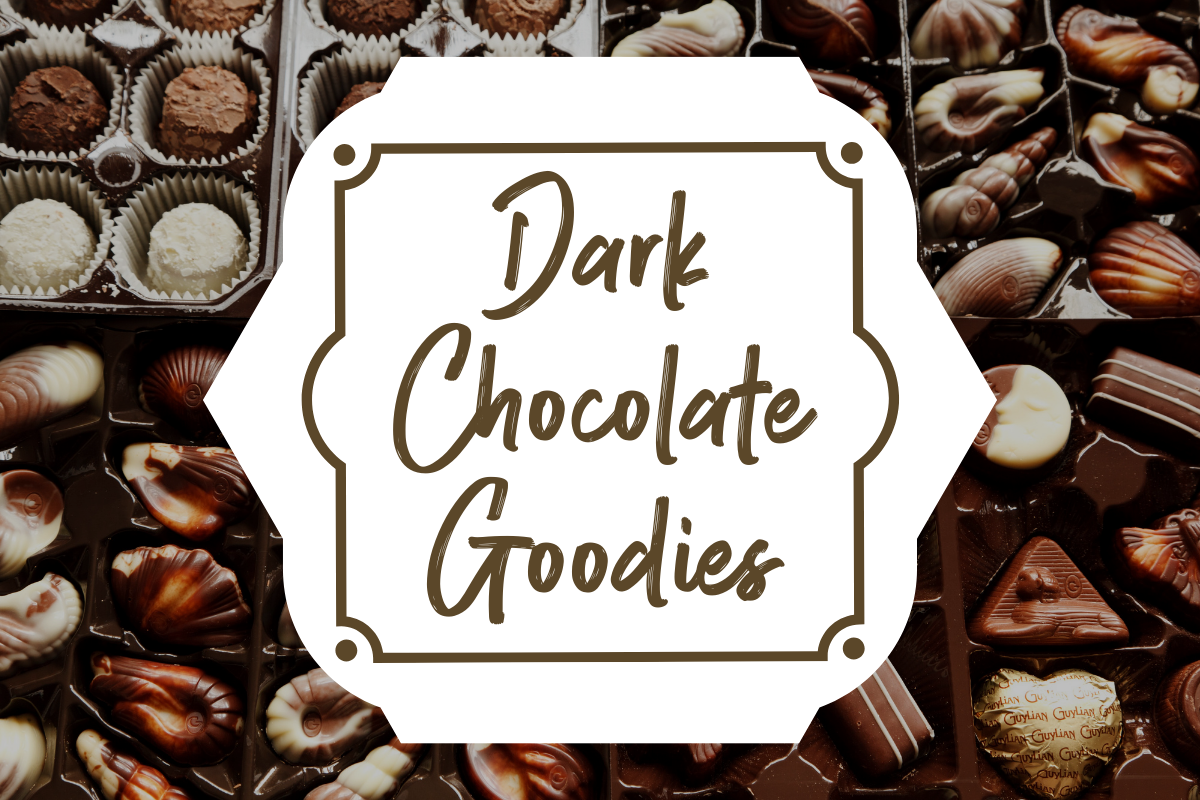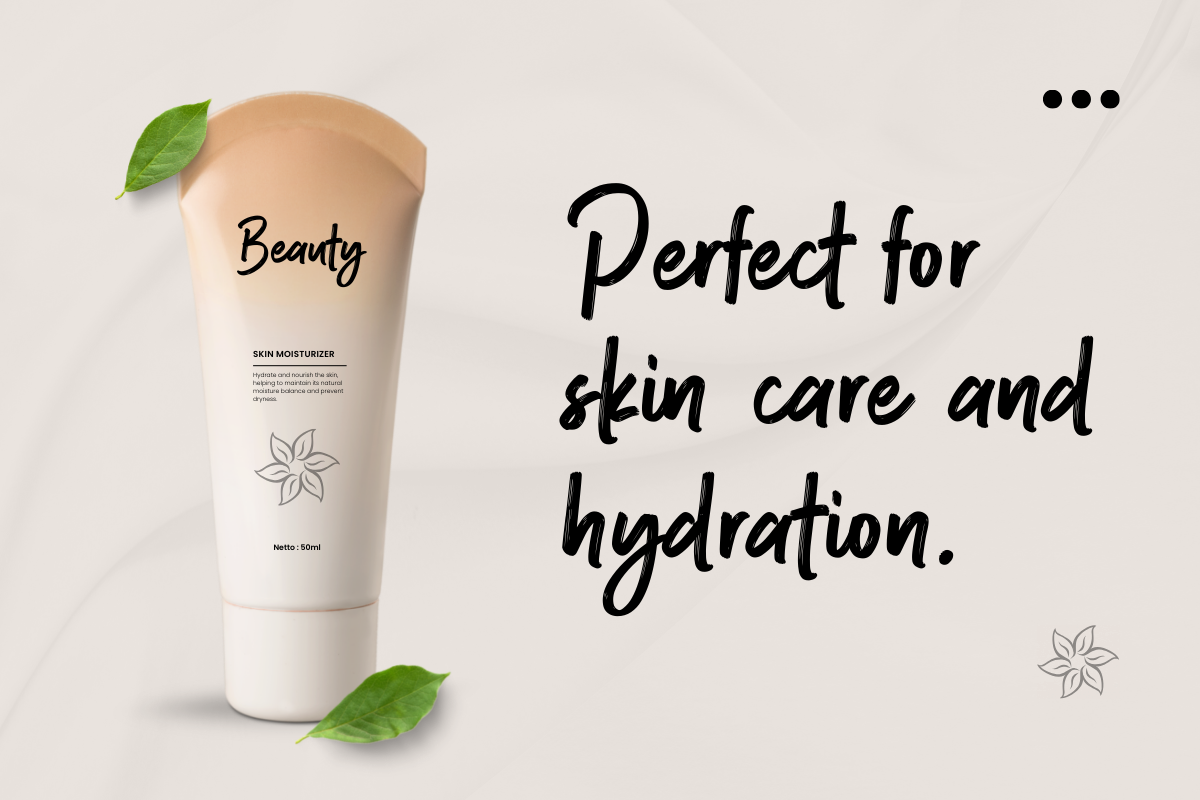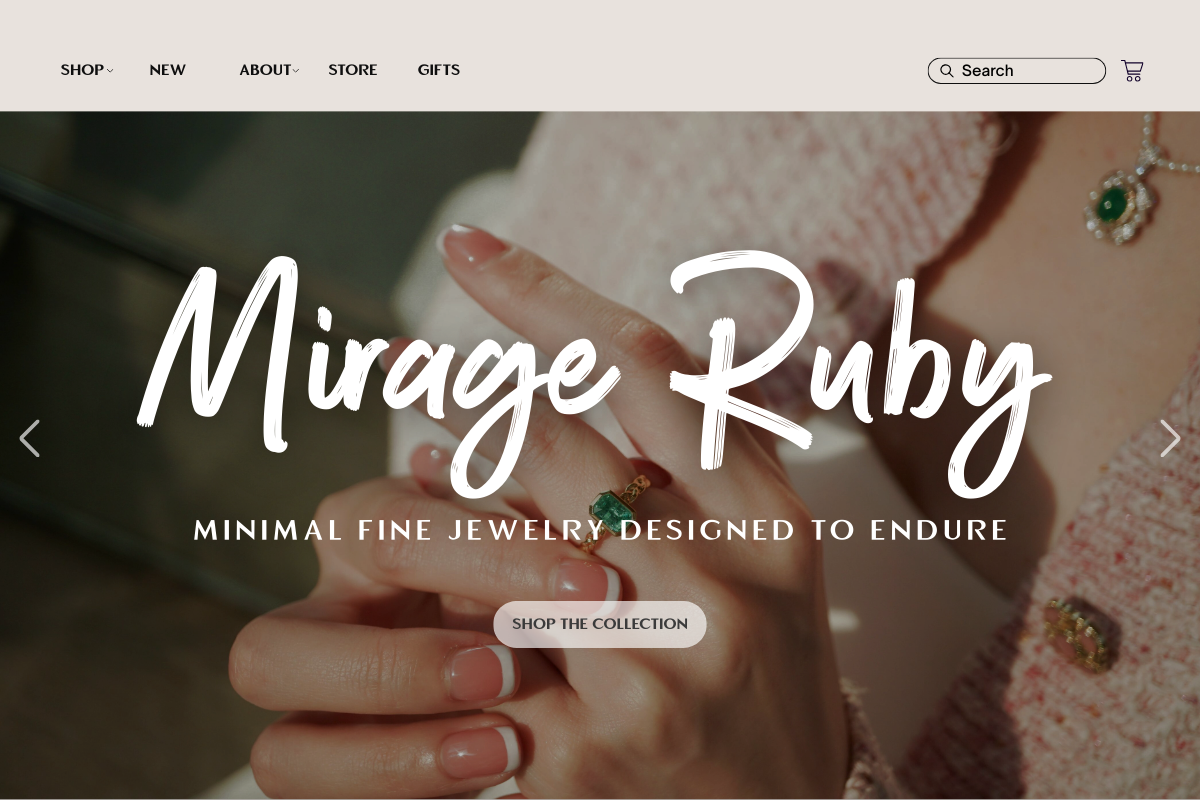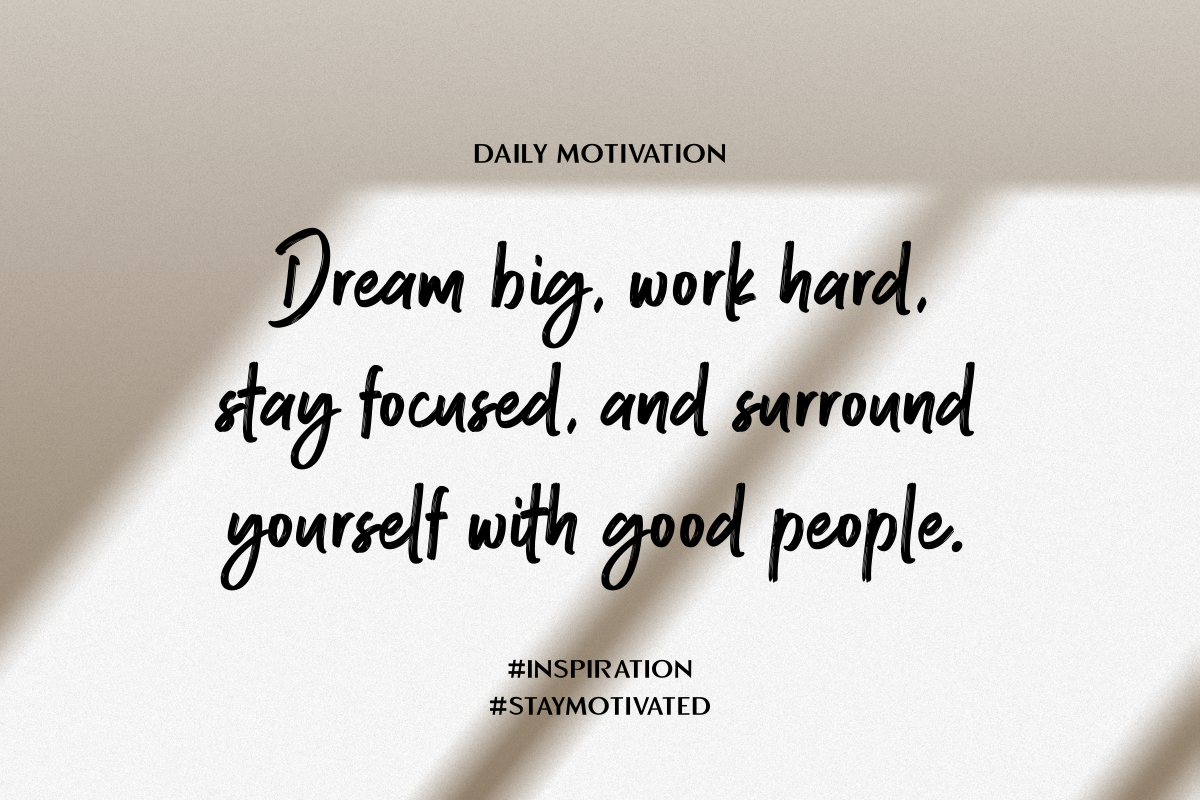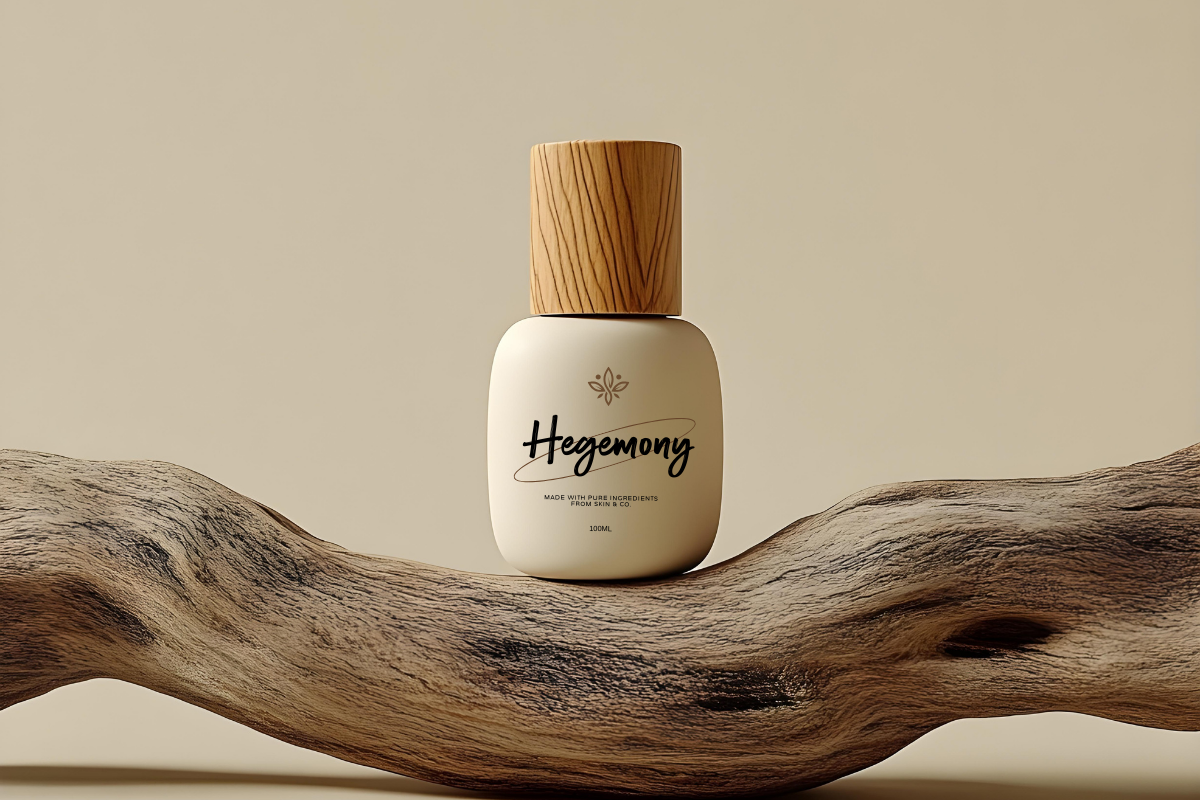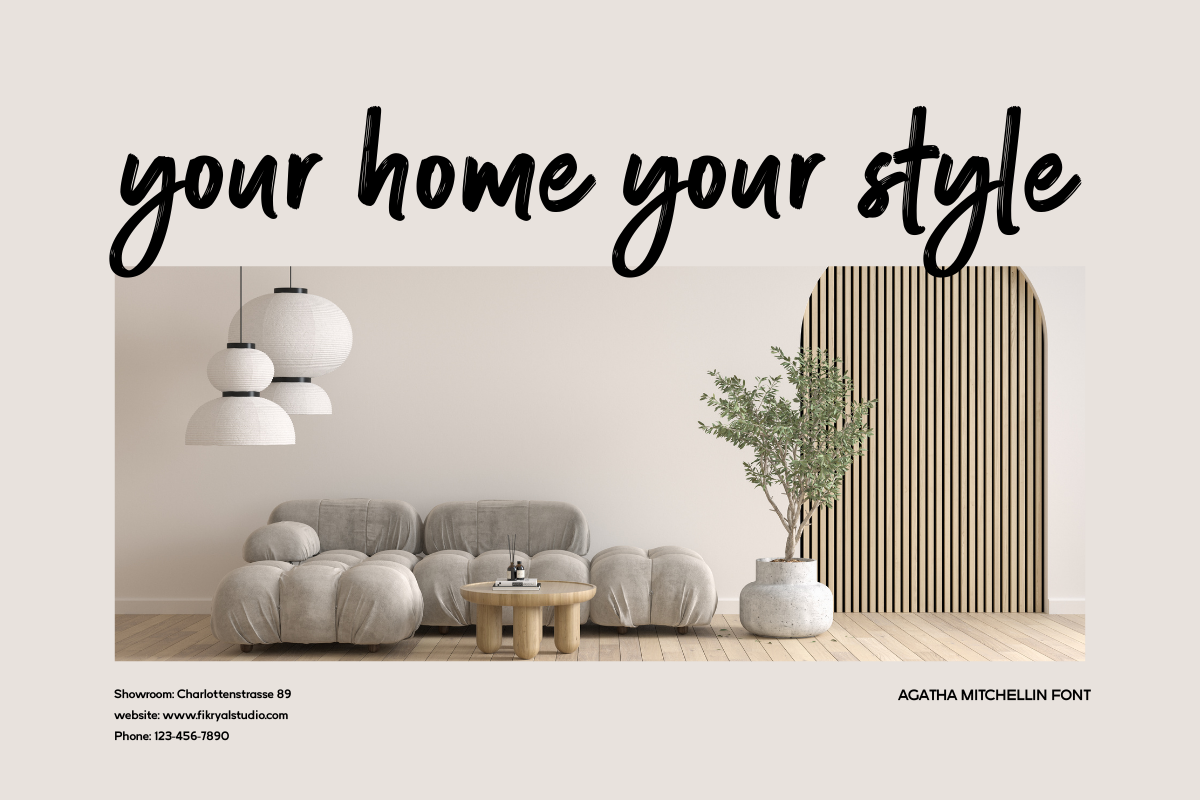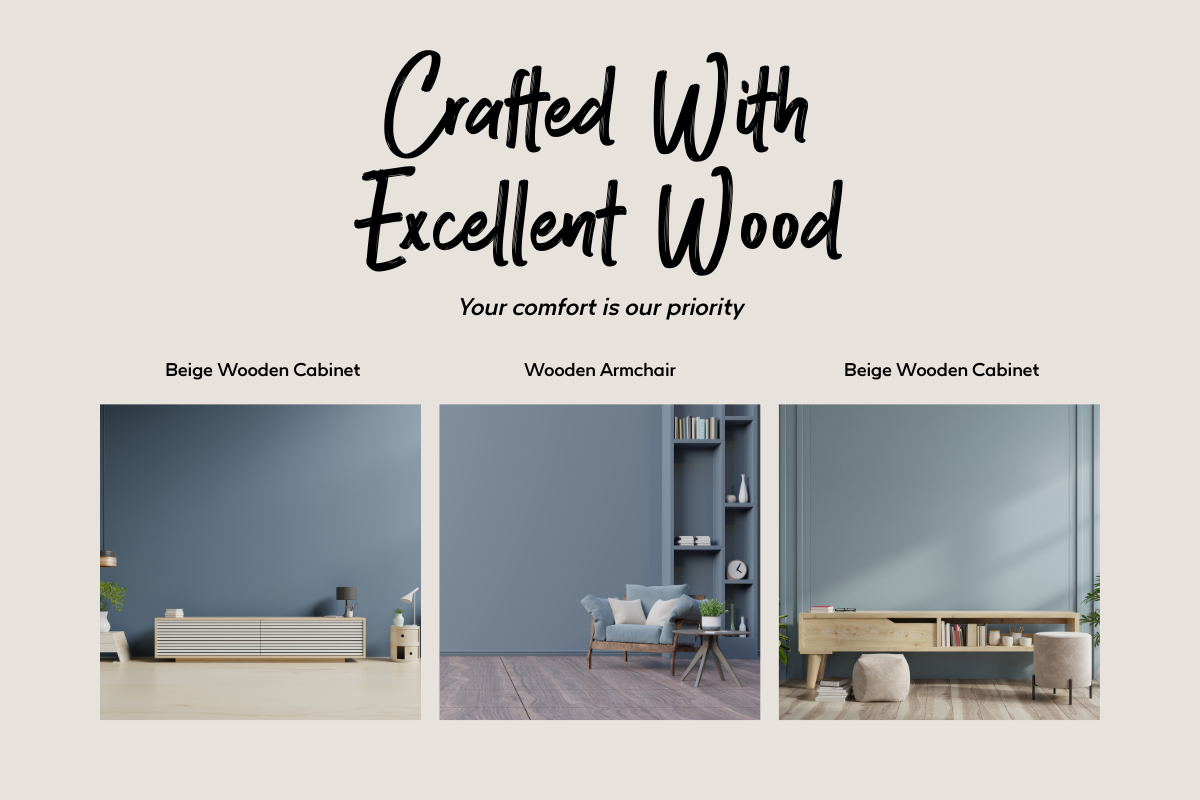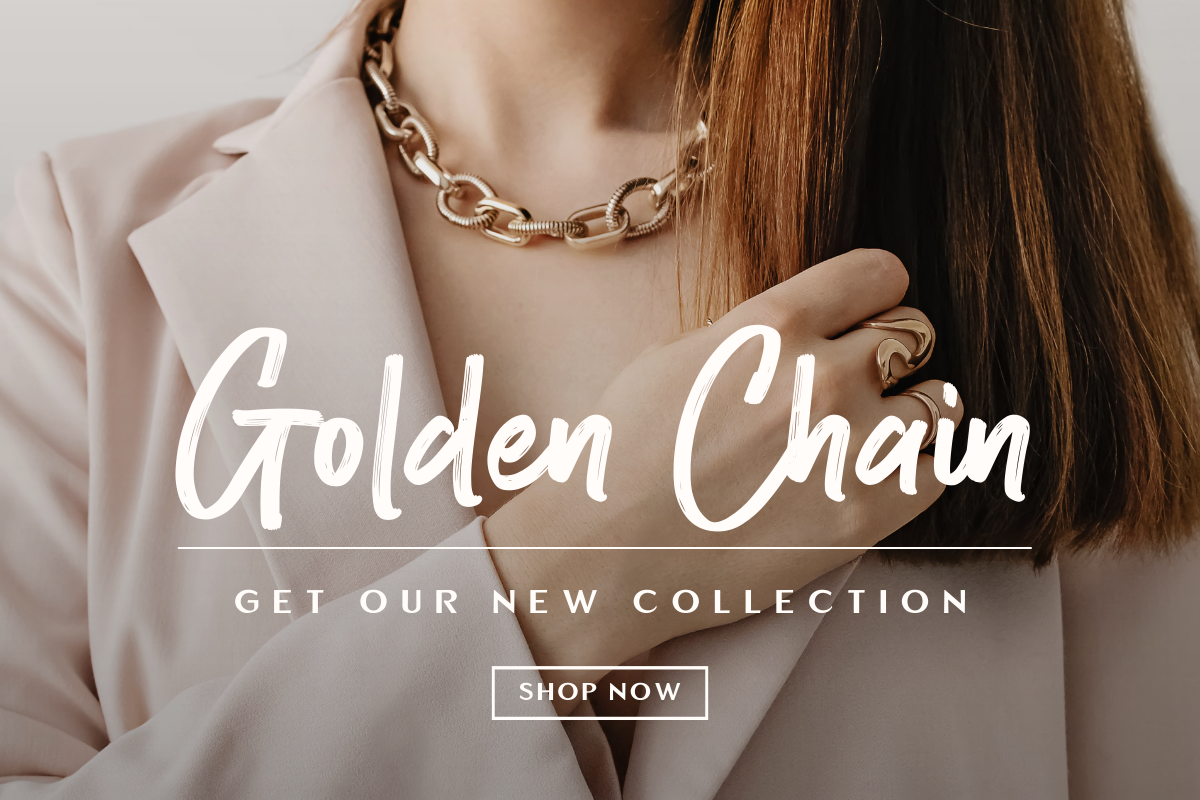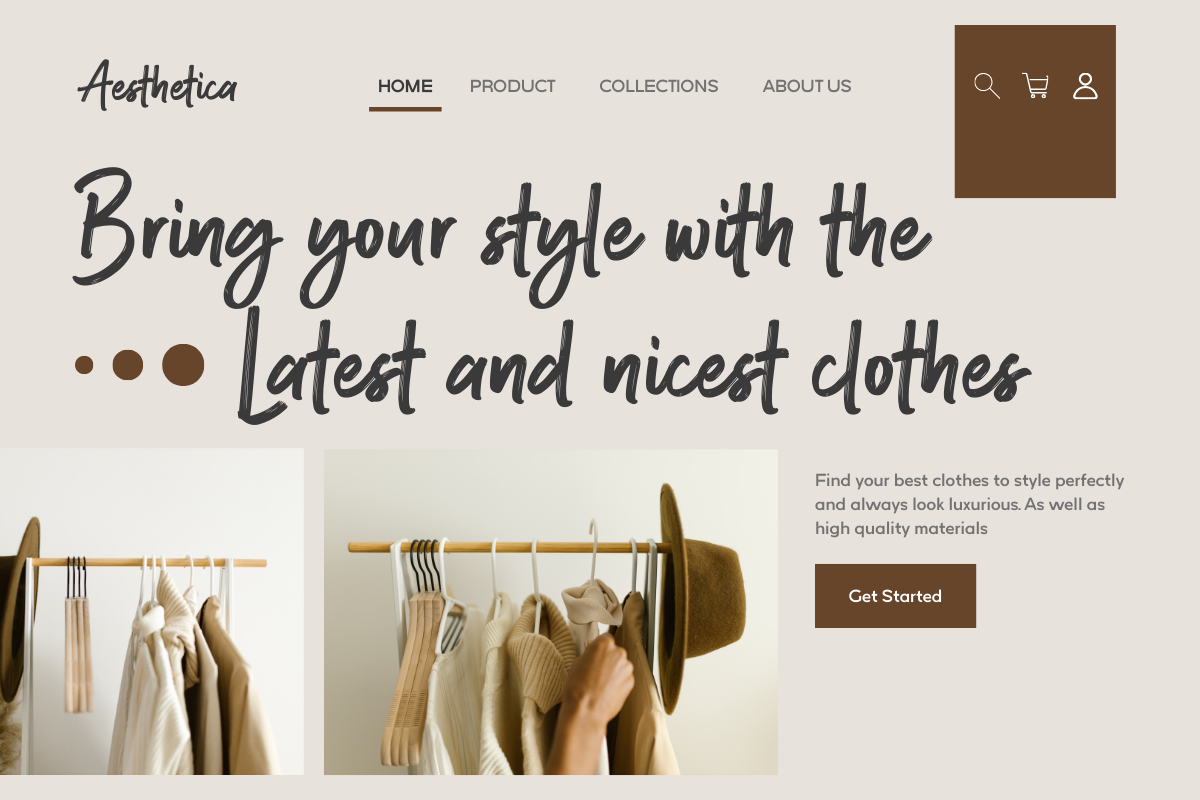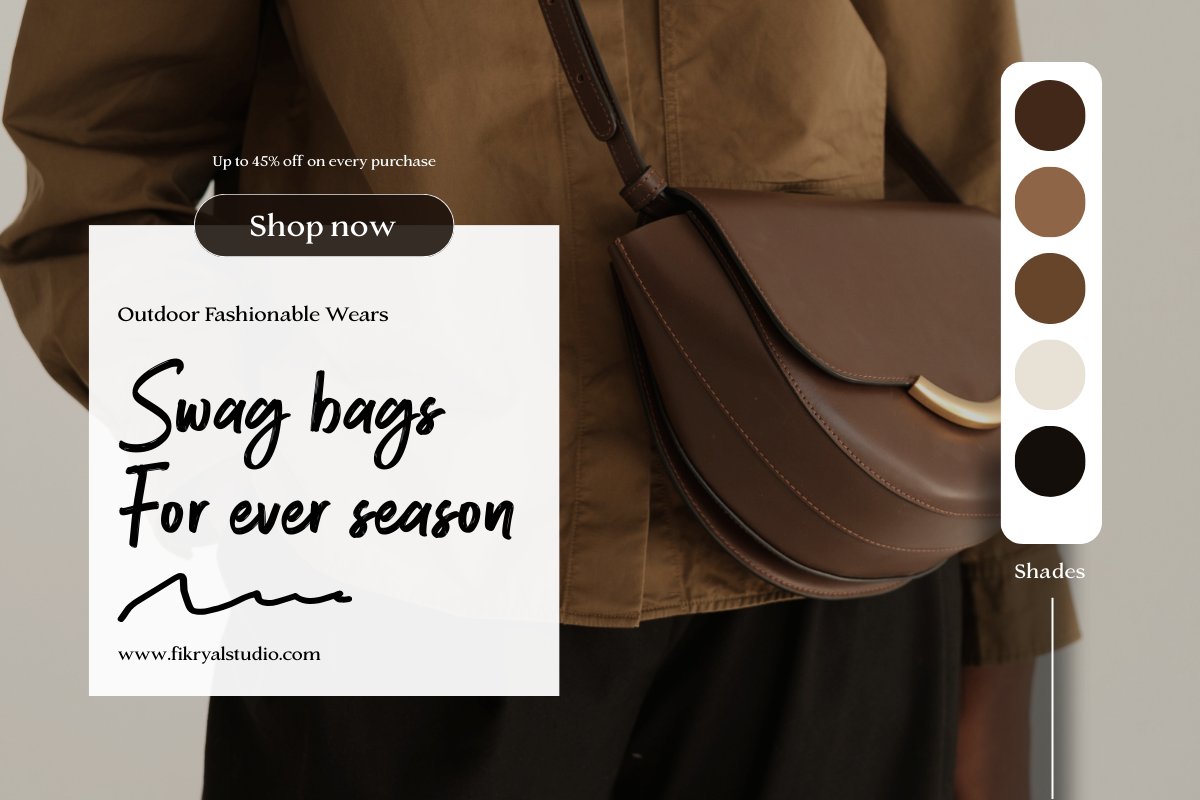
Agatha Mitchellin – Brush Script
Agatha Mitchellin is a bold and expressive brush script font inspired by natural hand-painted lettering. Designed with strong brush strokes, dynamic curves, and an organic handwritten flow, this font delivers a powerful and artistic look for modern typography projects.
The textured brush style gives Agatha Mitchellin a handcrafted and authentic feel, making it perfect for designs that need energy, personality, and visual impact. Each letter carries a natural brush movement that creates a lively and stylish composition.
Agatha Mitchellin works beautifully for branding, logos, posters, packaging, and social media graphics that require a bold yet artistic handwritten style.
Whether you are creating eye-catching headlines, expressive logos, or modern branding projects, Agatha Mitchellin will add creative brush lettering character to your designs.
- Uppercase & Lowercase Letters
- Authentic Brush Script Style
- Natural Brush Texture
- Punctuation & Symbols
Agatha Mitchellin is ideal for many creative projects such as:
- Logo Design
- Branding & Identity
- Posters & Headlines
- Product Packaging
- T-Shirt Designs
- Social Media Graphics
- Fashion Branding
- Photography Watermarks
- Quotes & Typography
- Creative Advertising
This font creates a bold, energetic, and handcrafted brush lettering style that helps designs stand out and feel more authentic.
Multilingual Support:
Agatha Mitchellin supports a wide range of languages including:
English, French, German, Spanish, Portuguese, Italian, Dutch, Danish, Swedish, Norwegian, Finnish, Polish, Czech, Hungarian, Romanian, Turkish, and many more.